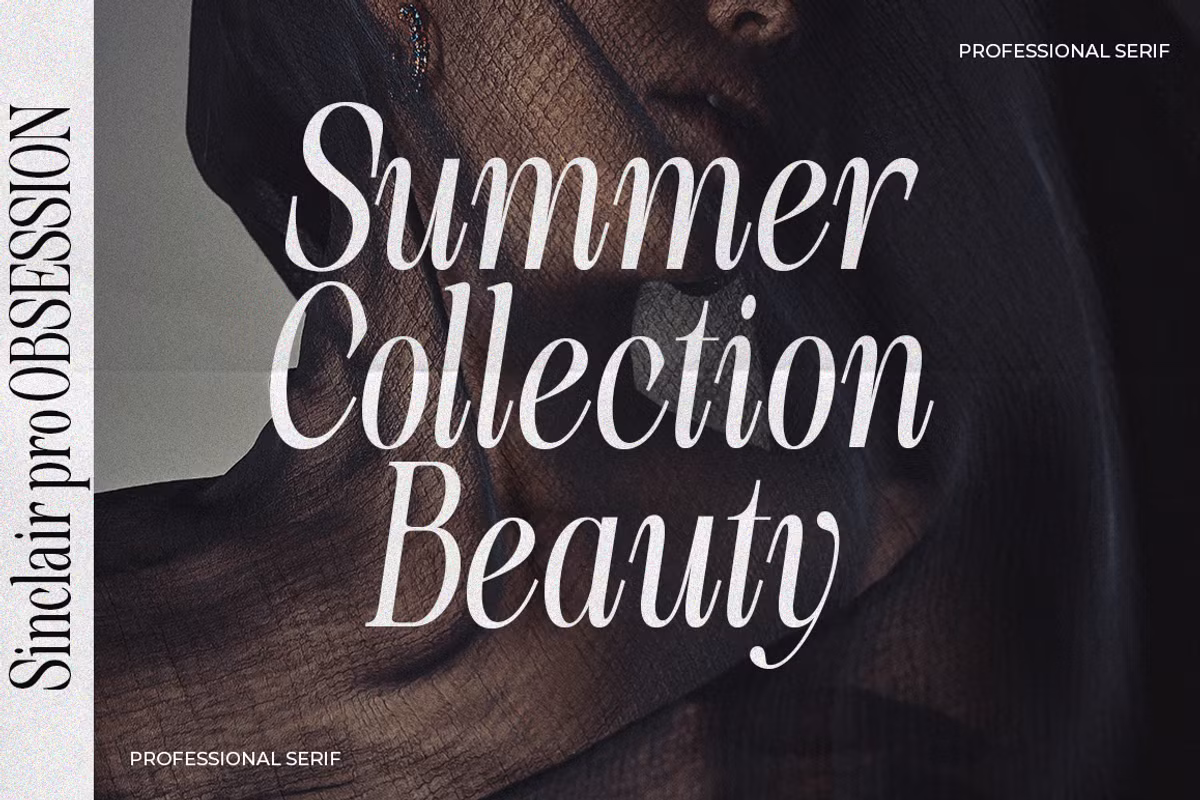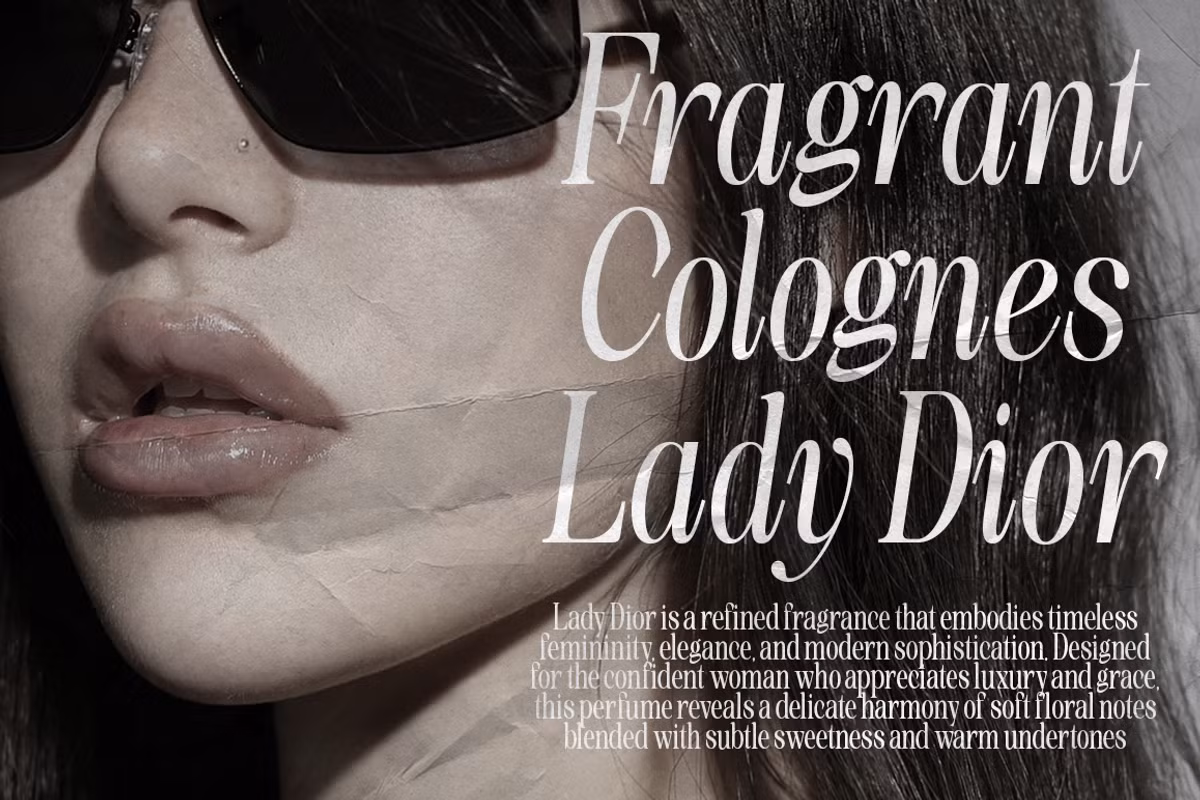
Sinclair Pro Obsession: Luxurious Serif Typeface with 12 Styles
Introducing Sinclair Pro Obsession
Sinclair Pro Obsession is a fancy serif font that looks really high-end and modern. It’s meant to make your projects stand out, and it does this by mixing old-school serif elements with a fresh, contemporary feel. If you’re working on a luxury brand or a fancy magazine layout, this font is perfect – it turns plain text into something that really makes a statement, and it’s all about style and sophistication. With its classic lines and modern twist, Sinclair Pro Obsession is great for anyone who wants to add a touch of elegance to their work.
Whether you’re designing a logo, a website, or a print ad, this font is sure to impress. It’s all about creating a visual impact that draws people in and makes them take notice. So if you want to take your projects to the next level, Sinclair Pro Obsession is definitely worth checking out.
The Sinclair Pro Obsession design is a great example of careful craftsmanship. Every letter is made with smooth curves and balanced proportions, creating a beautiful look that works well in many different situations. The font family has 12 different styles, giving designers a lot of options to work with. From the simple Regular and Italic styles to the stronger Condensed and Expanded versions, each one has been carefully made to keep a consistent level of sophistication while offering many different typographic choices.
This means that whether you’re using the font for a classic look or something more bold, Sinclair Pro Obsession has a style that will fit your needs. With its many styles and elegant design, this font is a great tool for designers who want to create beautiful and effective typography.
Character Set
The Sinclair Pro Obsession font has a lot to offer when it comes to creating unique and interesting designs. With a wide range of characters, including uppercase letters, numbers, and punctuation marks, you’ll have everything you need to make your project stand out. Plus, it includes ligatures, which can add a touch of elegance to your text.
One of the best things about this font is that it supports multiple languages, making it perfect for projects that need to reach a global audience. Whether you’re working on an international campaign or just want to add some flair to your design, Sinclair Pro Obsession is a great choice. It’s got all the tools you need to create comprehensive and visually appealing typographic compositions.
Use Cases
Sinclair Pro Obsession is a versatile typeface that can be utilized across a wide range of design applications. Here are some of the most popular use cases:
- Logos and Brand Identities: Great for high-end logos, enhancing luxury brands.
- Publications: Perfect for magazines and books, ensuring readability with style.
- Fashion Magazines: Ideal for contemporary fashion layouts, striking visuals.
- Wedding Invitations: Adds elegance to wedding stationery.
- Packaging Design: Elevates packaging for high-end products.
With its distinct style, Sinclair Pro Obsession is a top choice for projects that demand sophistication and elegance.